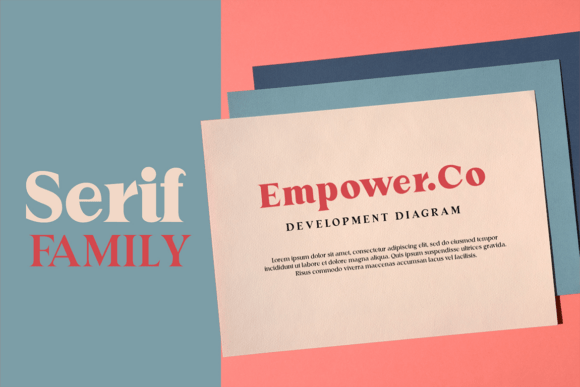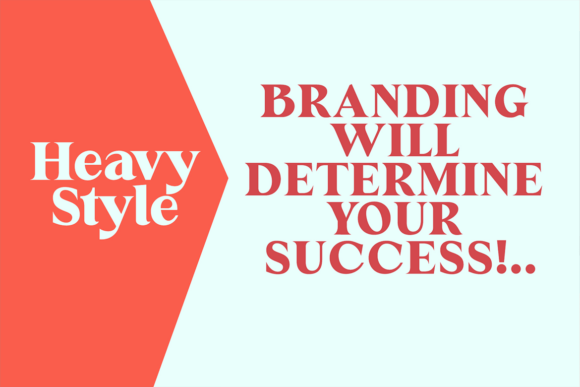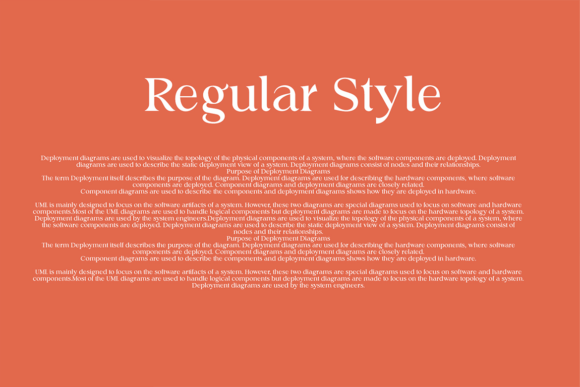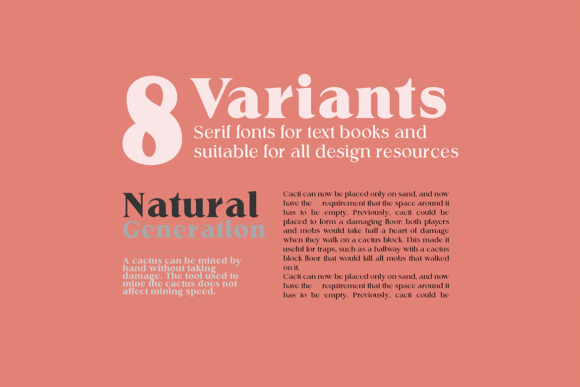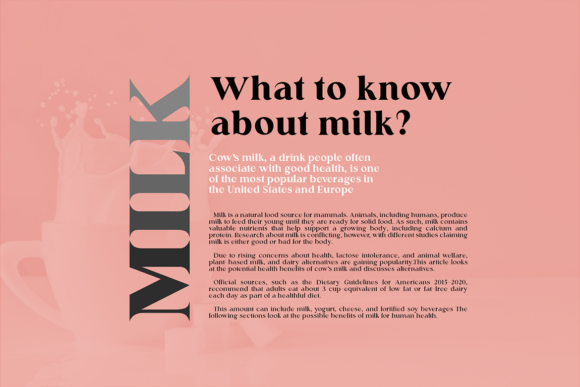
Egbart’s Font: Elevate Your Design with Elegance and Sophistication
In the world of typography, few fonts manage to strike a balance between classic elegance and contemporary flair. Egbart’s Font is one such exceptional typeface that seamlessly blends traditional sophistication with modern edge. Designed to make a statement, Egbart’s is a bold, high-contrast serif font family that is sure to elevate your design projects to new heights of luxury and refinement.
The Distinctive Characteristics of Egbart’s Font
Egbart’s Font is characterized by its thick, dramatic strokes and sharp, flared serifs, which lend it an air of sophistication and high-fashion elegance. The tight curves and solid presence of the letterforms create a visually striking effect that commands attention. Whether you’re designing luxury branding, editorial layouts, boutique logotypes, or impactful advertising headers, Egbart’s provides the perfect typographic voice to convey a sense of smart style and refinement.
Versatility at Its Best: 8 Variants to Explore
One of the standout features of Egbart’s Font is its versatility. Available in 8 different variants, this font family offers extensive creative flexibility, allowing designers to experiment with a range of styles and moods. From bold and dramatic to more subtle and refined, Egbart’s variants cater to diverse design needs, ensuring that you can find the perfect fit for your project.
Luxury Branding and Editorial Design
Egbart’s Font is particularly well-suited for luxury branding and editorial design. Its sophisticated aesthetic and high-fashion vibe make it an excellent choice for high-end fashion magazines, luxury lifestyle publications, and upscale brand identities. The font’s bold, high-contrast strokes and elegant serifs evoke a sense of refinement and exclusivity, perfect for brands that want to convey a sense of prestige and sophistication.
Boutique Logotypes and Advertising Headers
In addition to its applications in luxury branding and editorial design, Egbart’s Font is also ideal for boutique logotypes and impactful advertising headers. The font’s bold, attention-grabbing style ensures that your message stands out in a crowded visual landscape. Whether you’re designing a logo for a boutique fashion label or creating an eye-catching ad header, Egbart’s provides the perfect combination of style and substance.
Key Features of Egbart’s Font
- Bold, high-contrast serif font family: Egbart’s Font features thick, dramatic strokes paired with sharp, flared serifs, creating a sophisticated and elegant aesthetic.
- 8 versatile variants: With 8 different variants to choose from, Egbart’s offers extensive creative flexibility, allowing designers to experiment with a range of styles and moods.
- Luxury branding and editorial design: Egbart’s Font is perfect for high-end fashion magazines, luxury lifestyle publications, and upscale brand identities.
- Boutique logotypes and advertising headers: The font’s bold, attention-grabbing style makes it ideal for boutique logotypes and impactful advertising headers.
In conclusion, Egbart’s Font is an exceptional typeface that offers a unique blend of classic elegance and contemporary flair. Its sophisticated aesthetic, versatility, and extensive creative flexibility make it an excellent choice for designers and crafters looking to elevate their design projects to new heights of luxury and refinement. Whether you’re working on luxury branding, editorial design, boutique logotypes, or advertising headers, Egbart’s Font provides the perfect typographic voice to convey a sense of smart style and sophistication.
So why settle for ordinary typography when you can make a statement with Egbart’s Font? Discover the power of this exceptional typeface and take your design projects to the next level of elegance and sophistication.